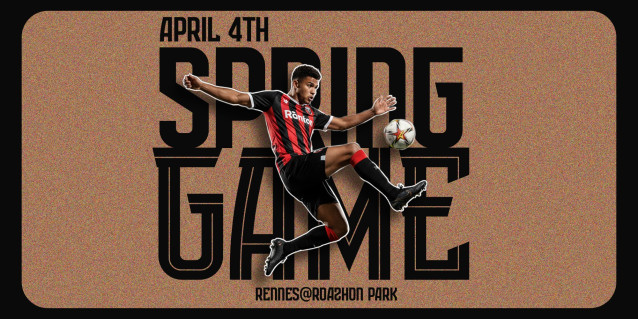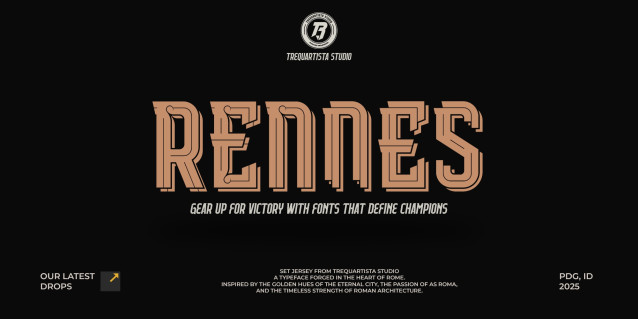
Rennes Font Family
Rennes Font Family is an athletic type system inspired by the bold identity of Stade Rennais and the visual strength of Bretagne. With sharp silhouettes and confident geometry, this typeface brings modern sports energy to any design.